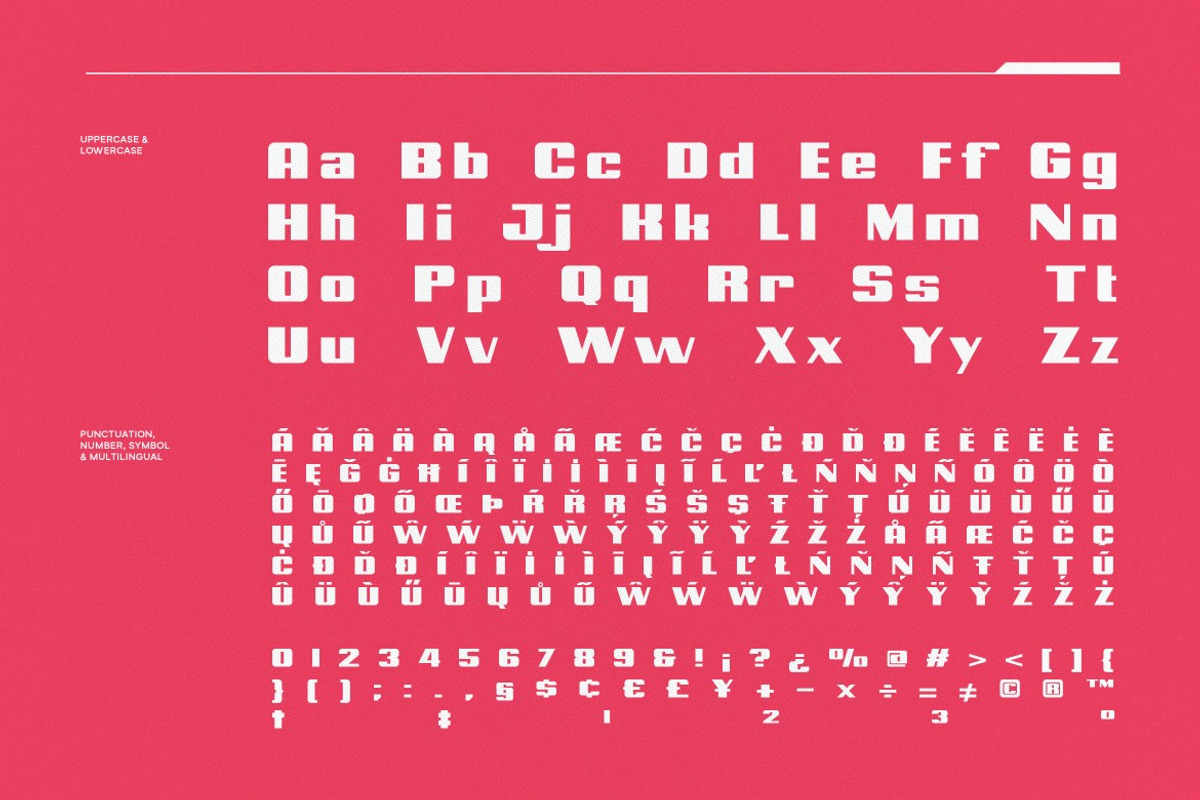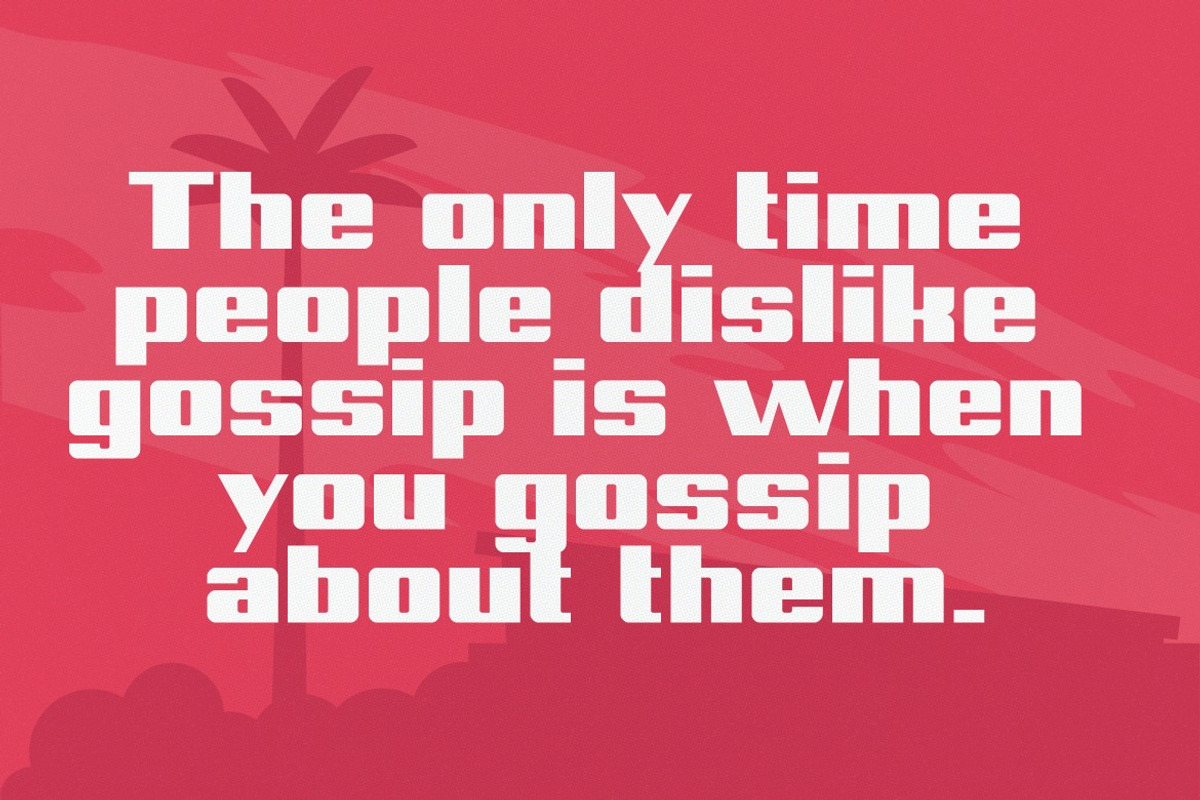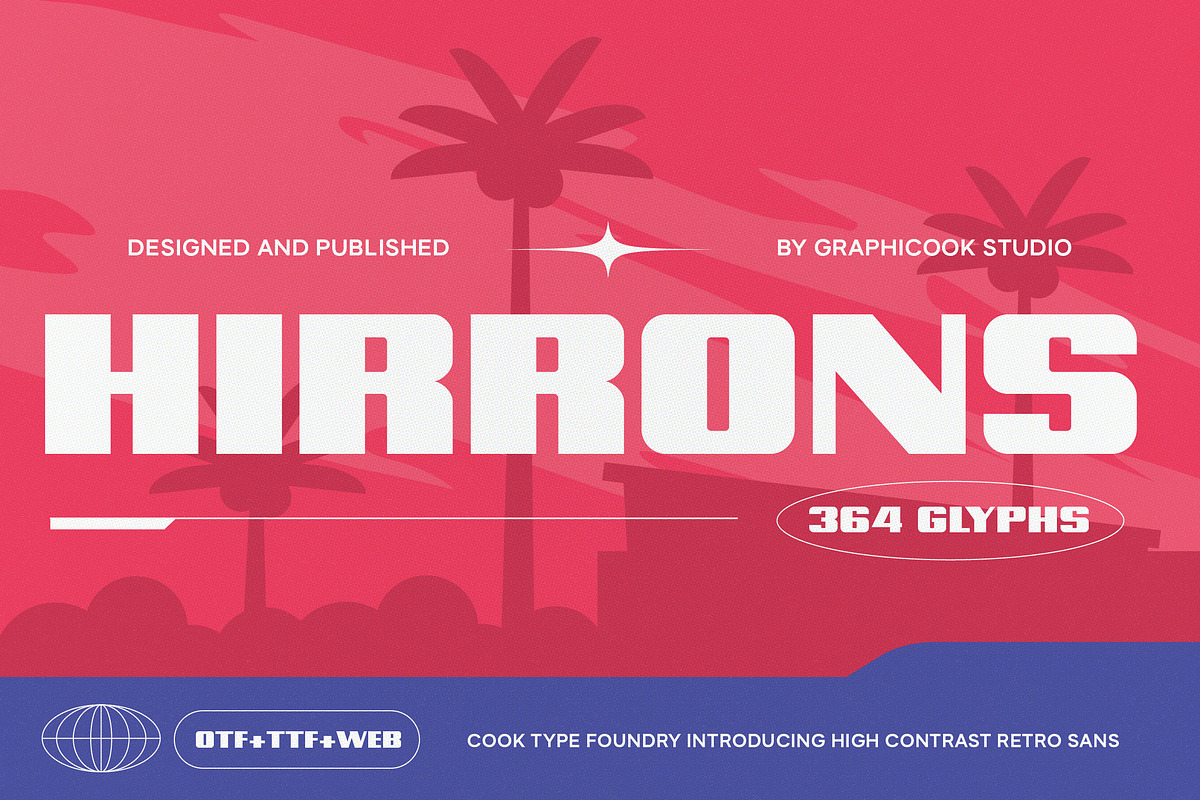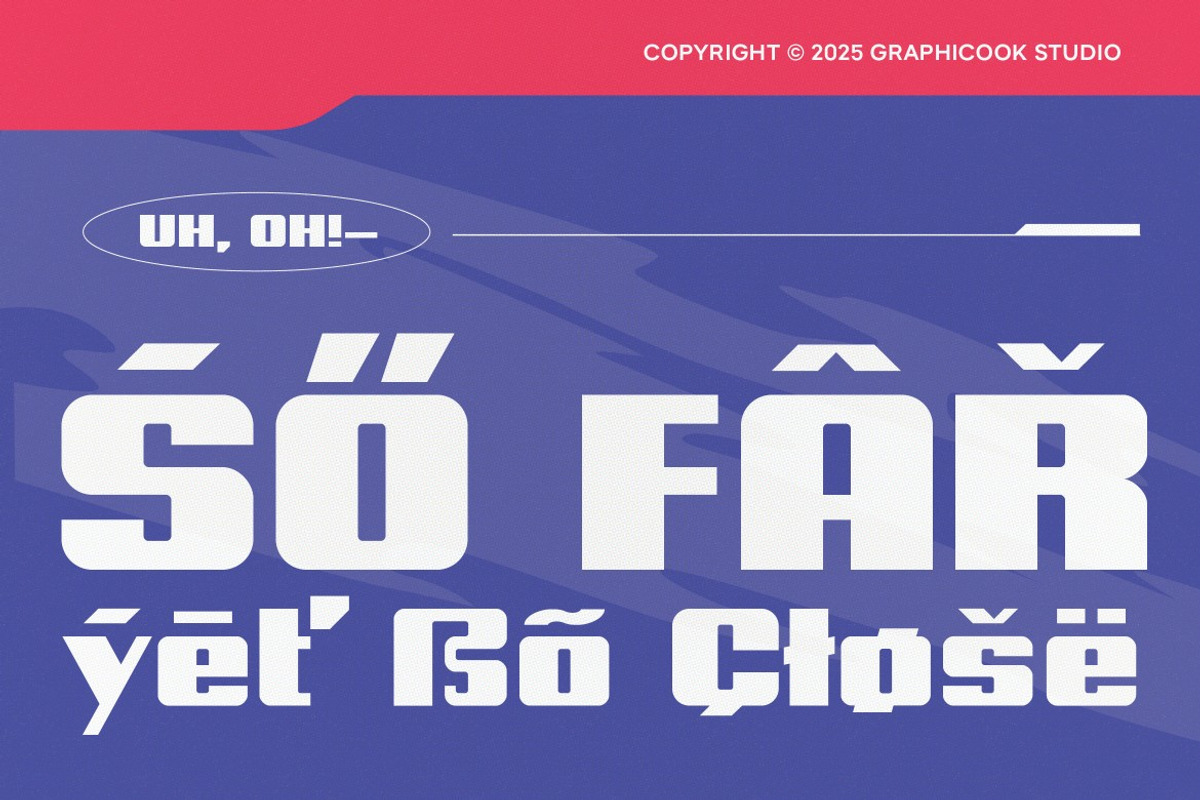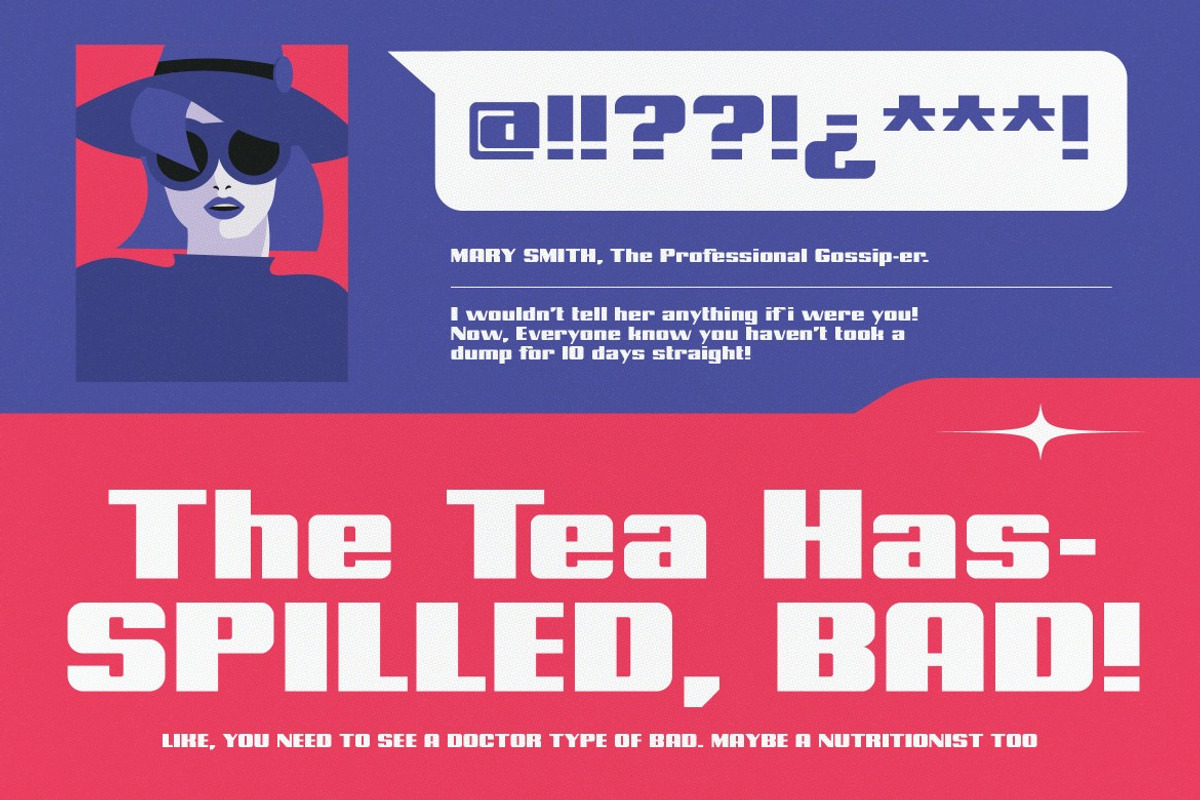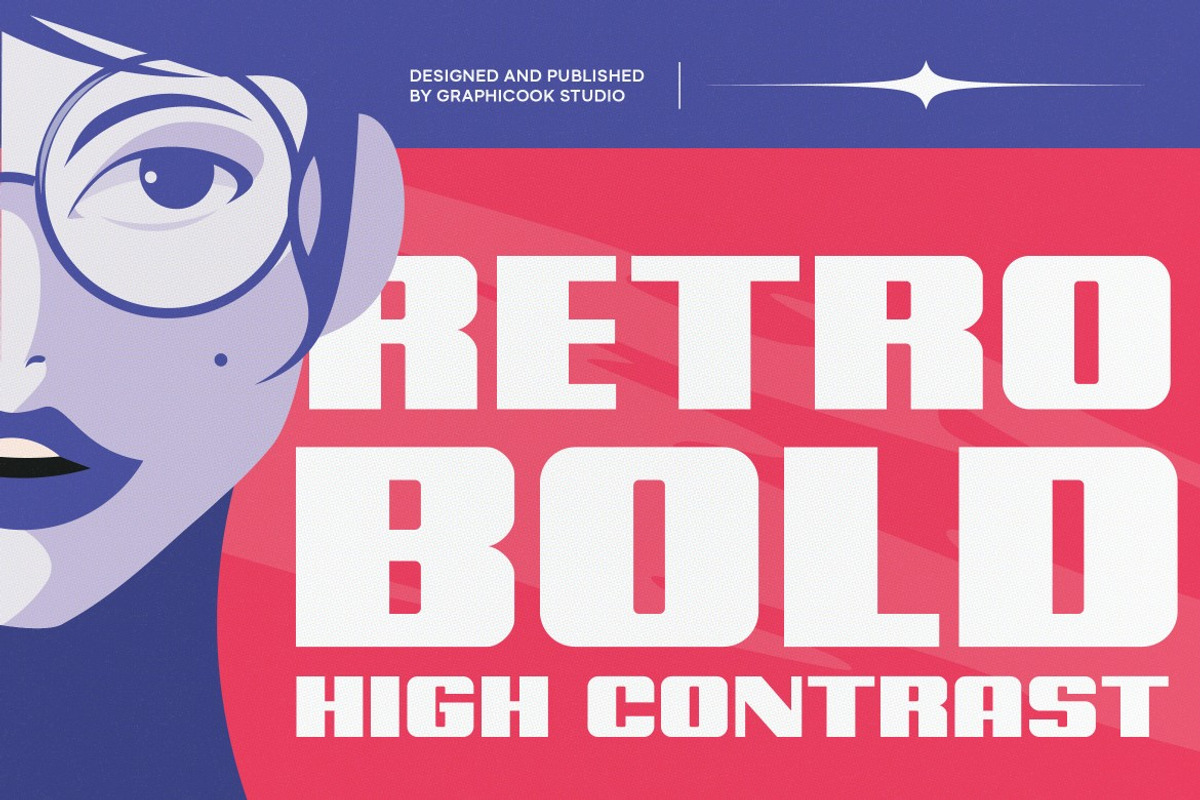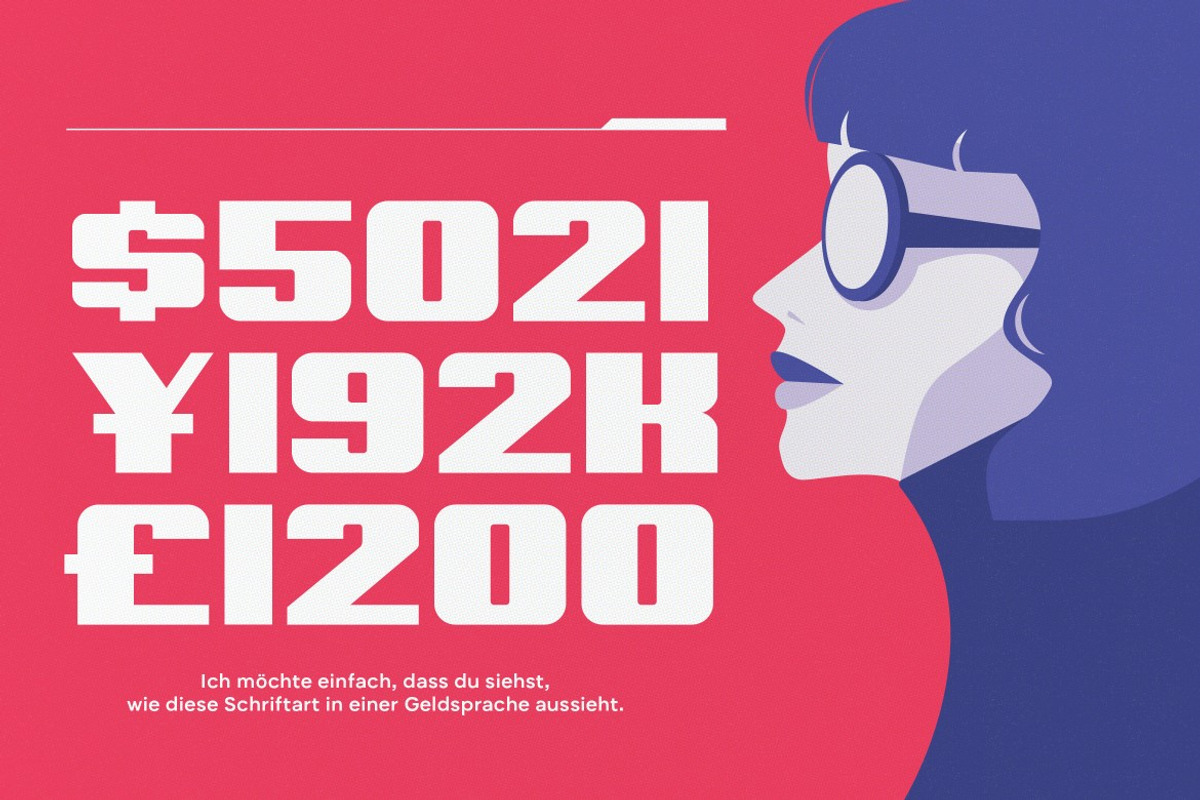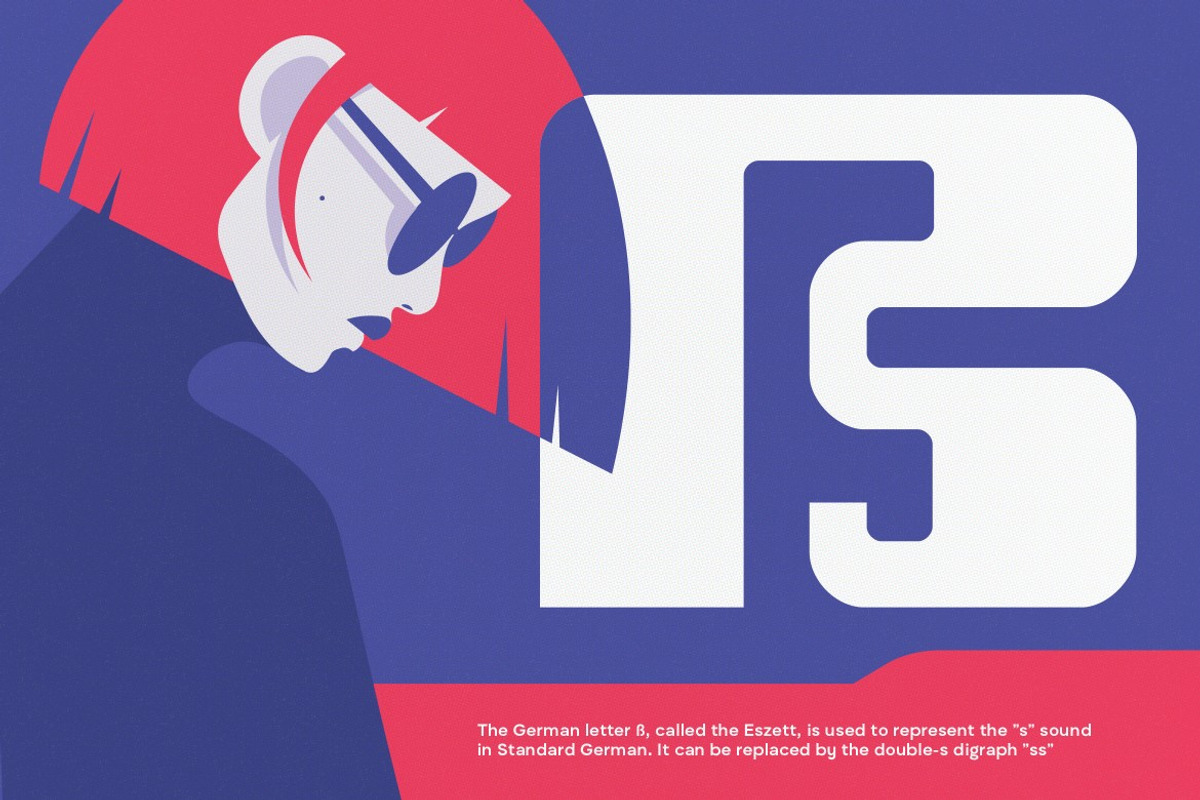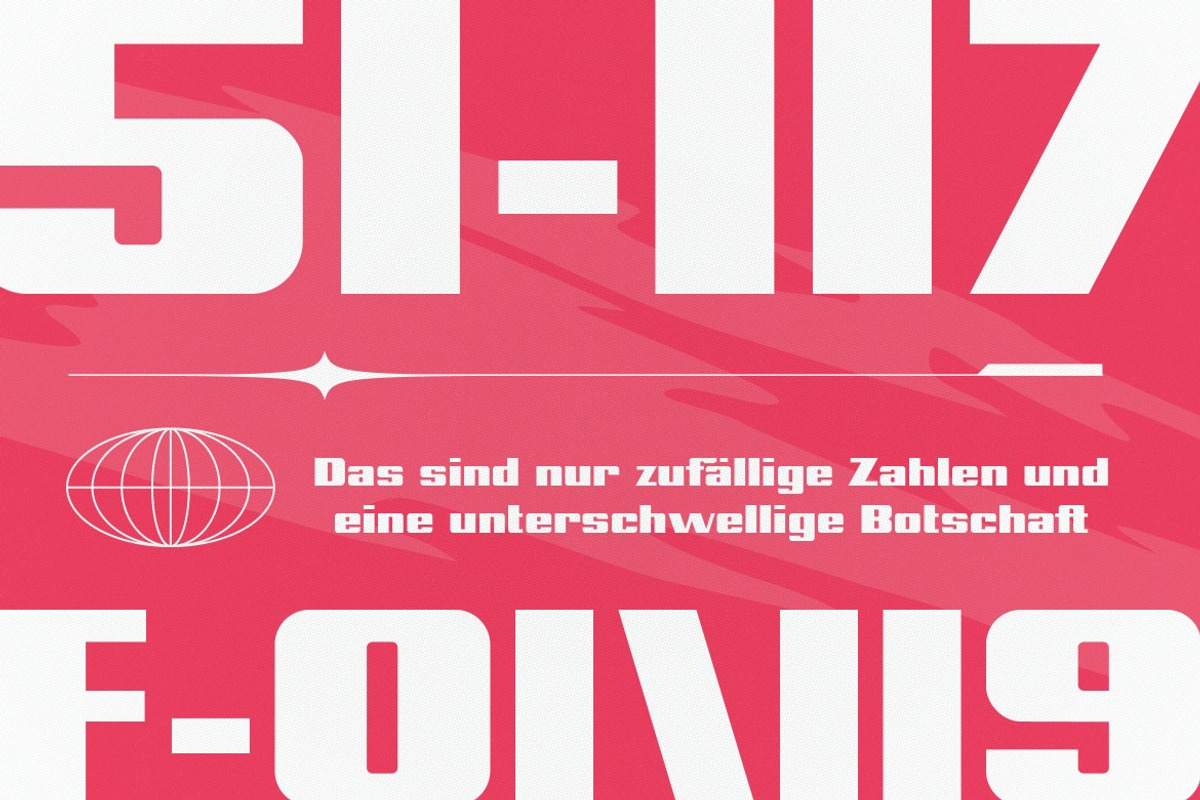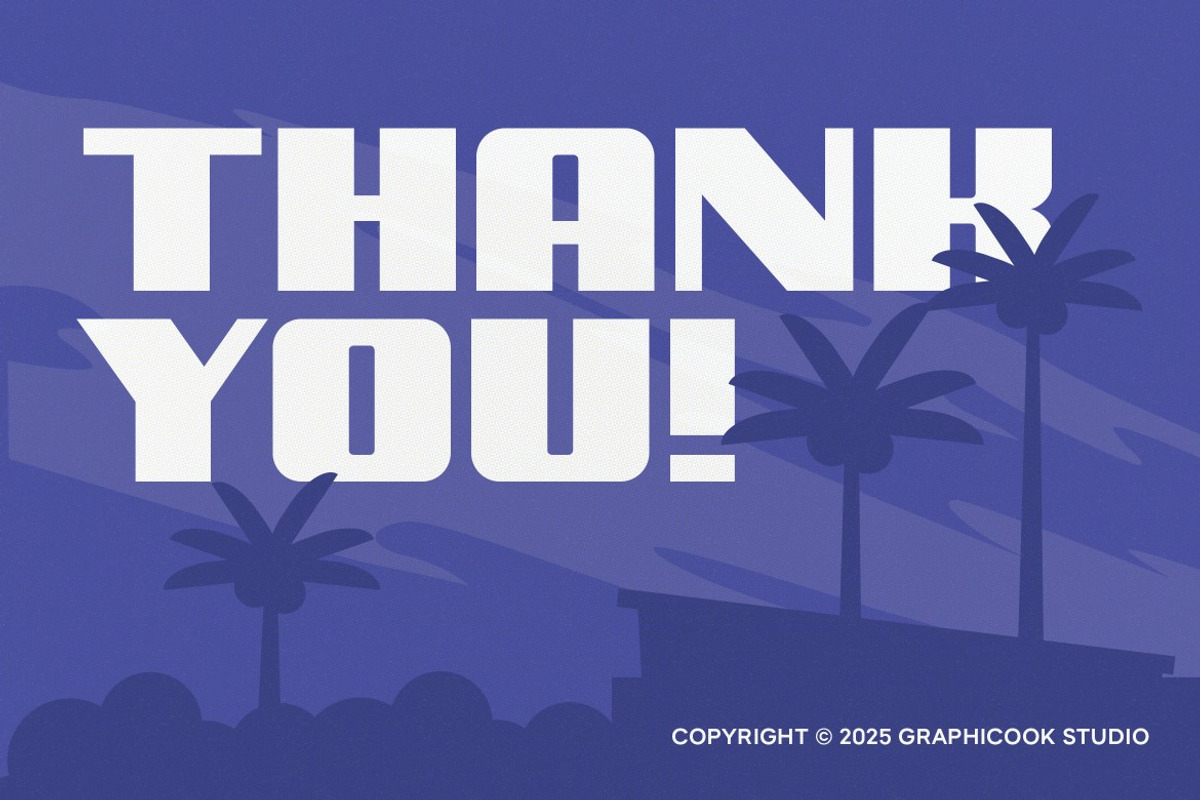
Hirrons
Hirrons is a bold, square-shaped sans-serif font with a retro style, giving off an energetic, funky, and eye-catching vibe. Perfect for logos, headlines, and pop-art or retro-inspired designs.
Hirrons is perfect for headlines, logotypes, magazines, packaging, quotes, movies, games, cover albums, book covers, and flyers, it's a perfect solution for creating eye-catching designs that stand out in any context.